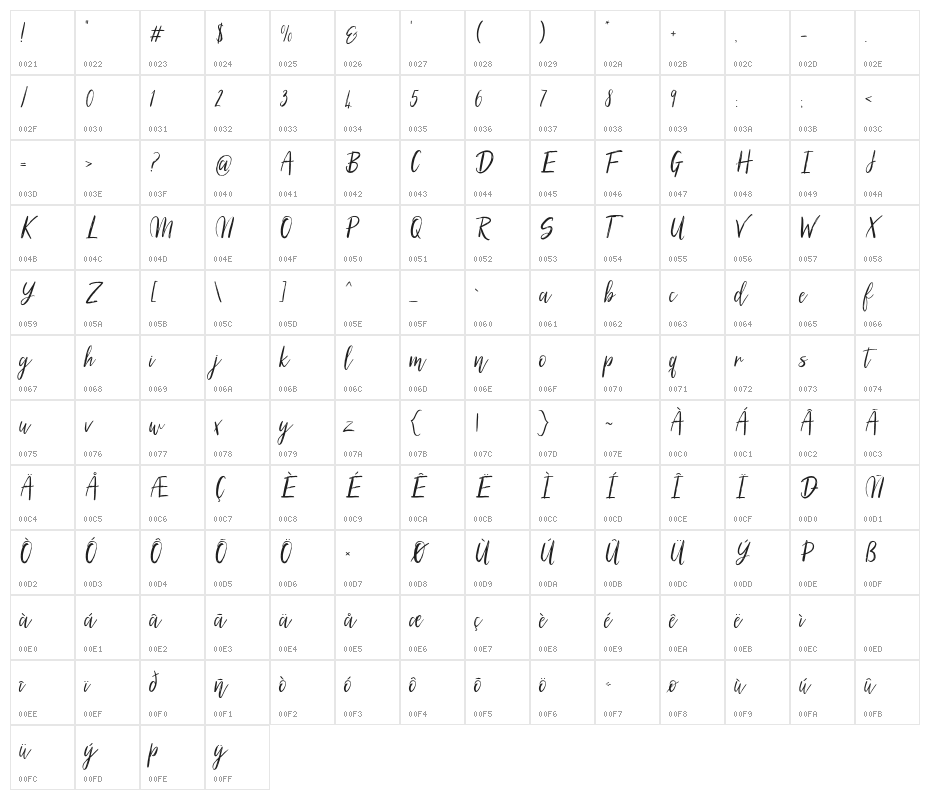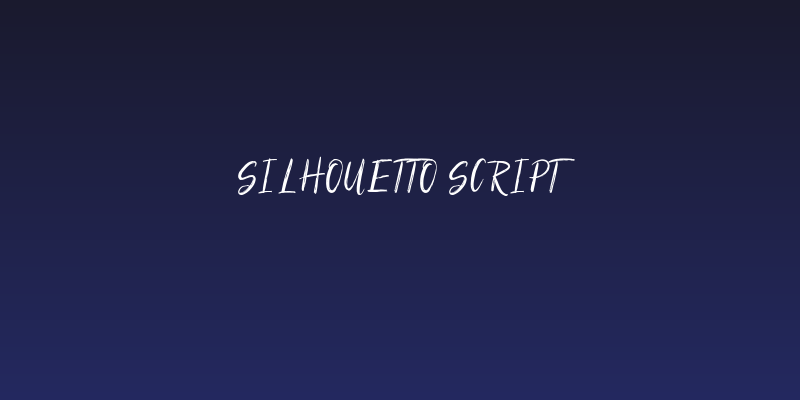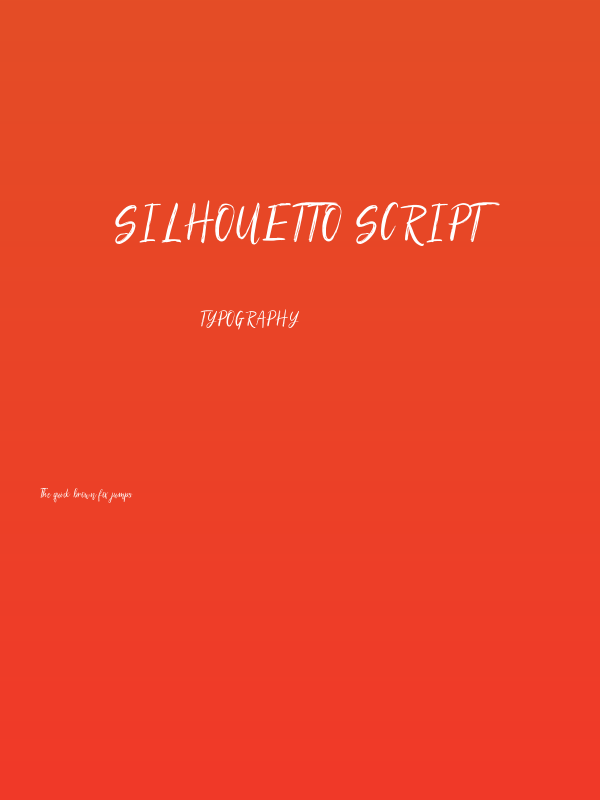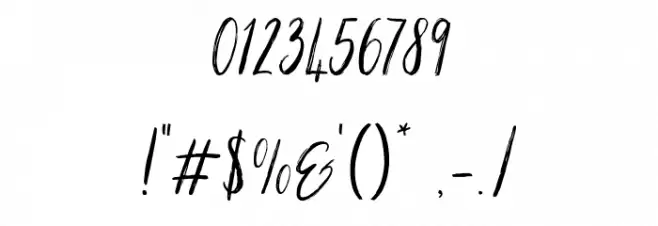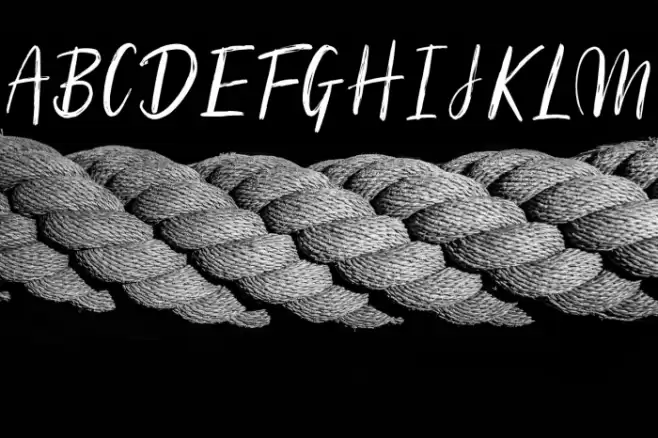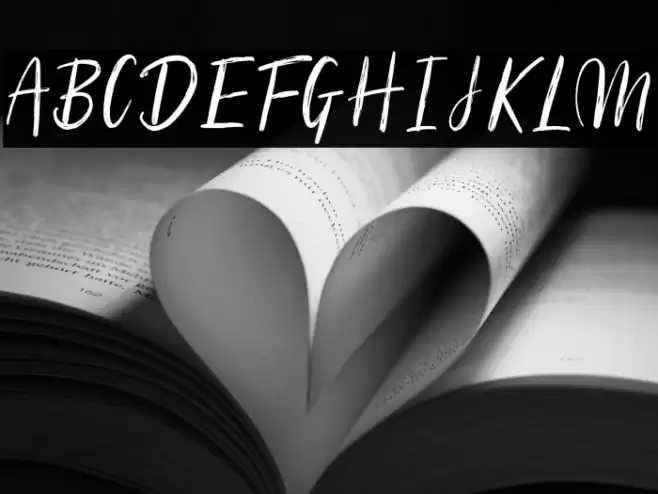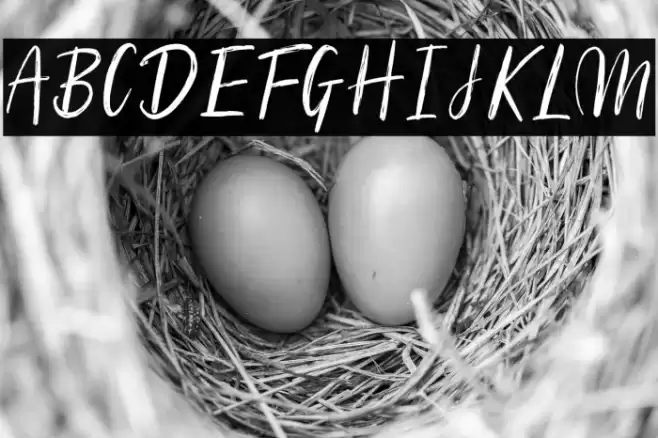
Silhouetto Script Font
Silhouetto Script Description
This font exudes a lively and expressive character, with its flowing script style that mimics the fluidity of handwriting. The letters are elegantly connected, creating a sense of movement and grace. The uppercase letters are bold and slightly elongated, while the lowercase letters maintain a consistent rhythm with gentle curves and loops. The numerals are distinct and easy to read, complementing the overall aesthetic. Special characters are thoughtfully designed, adding to the font's versatility. The strokes vary in thickness, providing a medium contrast that enhances readability while maintaining a decorative flair.